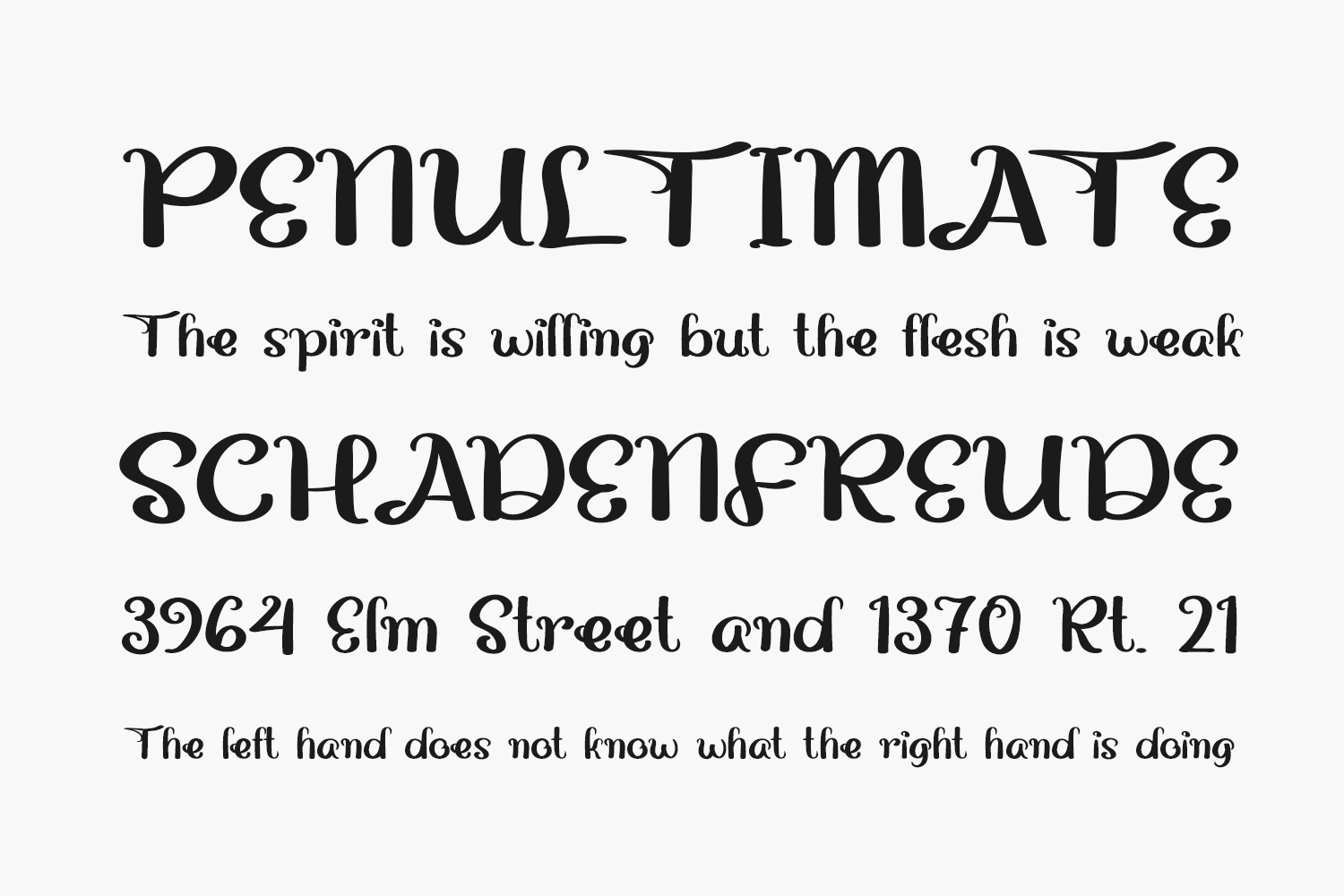
Chicago Free Font is a cute and chic script font. It embodies playfulness and authenticity and is the perfect choice for any project that requires a joyful touch. Chicago Free Font was designed by Erik Studio and is free for personal use only. Please purchase the full version for commercial use.